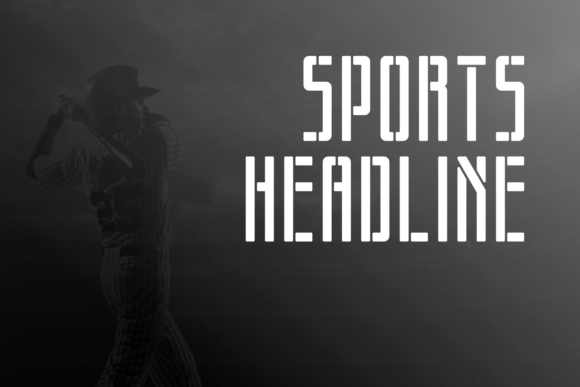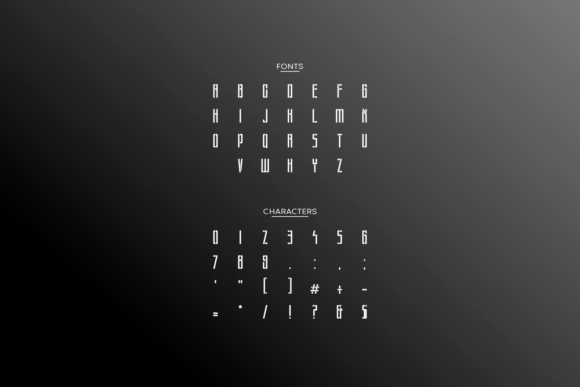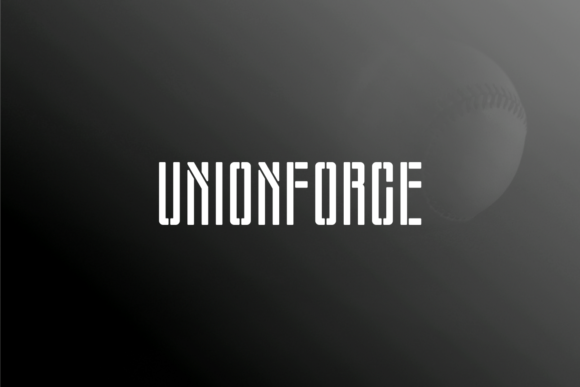
Introduction to Onbreghas Font
As designers, we’ve all been there – staring at a blank canvas, trying to spark that creative moment that sets our project apart. It’s the moment when everything comes together, and our vision starts to take shape. For many of us, it’s the right font that can make all the difference. And that’s exactly what the Onbreghas Font brings to the table – a unique blend of stencil style and improvisation that’s perfect for anything from spray design to illustrations.
With its transparent background and high-quality design, the Onbreghas Font is an invaluable resource for designers looking to elevate their creative projects. Whether you’re working on a book title, website title, or video captions, this font is sure to make your design stand out. And the best part? It’s available for free download, making it an accessible design resource for designers of all levels.
As a design enthusiast, you know that having the right tools can make all the difference in bringing your vision to life. The Onbreghas Font is one such tool that’s sure to become a staple in your design arsenal. So why settle for a generic font when you can make a statement with the Onbreghas Font?
Key Features of Onbreghas Font
- Unique and creative design perfect for various projects, including graphic design, digital art, and publishing.
- Perfect for designers looking for a unique and high-quality design resource to enhance their creative project.
Honest Review: Onbreghas Font
I recently had the chance to work with the Onbreghas Font, and I must say it’s a fantastic addition to any creative project. The font’s unique blend of elegance and sophistication makes it perfect for high-end designs that require a touch of luxury.
- ✨ High quality design: The Onbreghas Font is incredibly detailed and well-crafted, making it a joy to work with.
- ✨ Transparent background: The font’s transparent background allows for seamless integration with any design element, giving you complete creative freedom.
- ⚠️ Limited font styles: While the Onbreghas Font is beautiful, it’s only available in a few styles, which may limit its versatility in certain designs.
Overall, I’m thoroughly impressed with the Onbreghas Font. Its high quality and unique design make it a valuable addition to any design resource library. With a few minor tweaks, I believe this font has the potential to become a top choice among designers.
Use the Onbreghas Font on a transparent background to create a stunning design. Experiment with different font sizes and styles to add depth and visual interest to your project.
The Onbreghas Font is suitable for a variety of creative projects, including branding materials, marketing materials, and digital publications. It’s a free download, making it an excellent design resource for both personal and professional use.